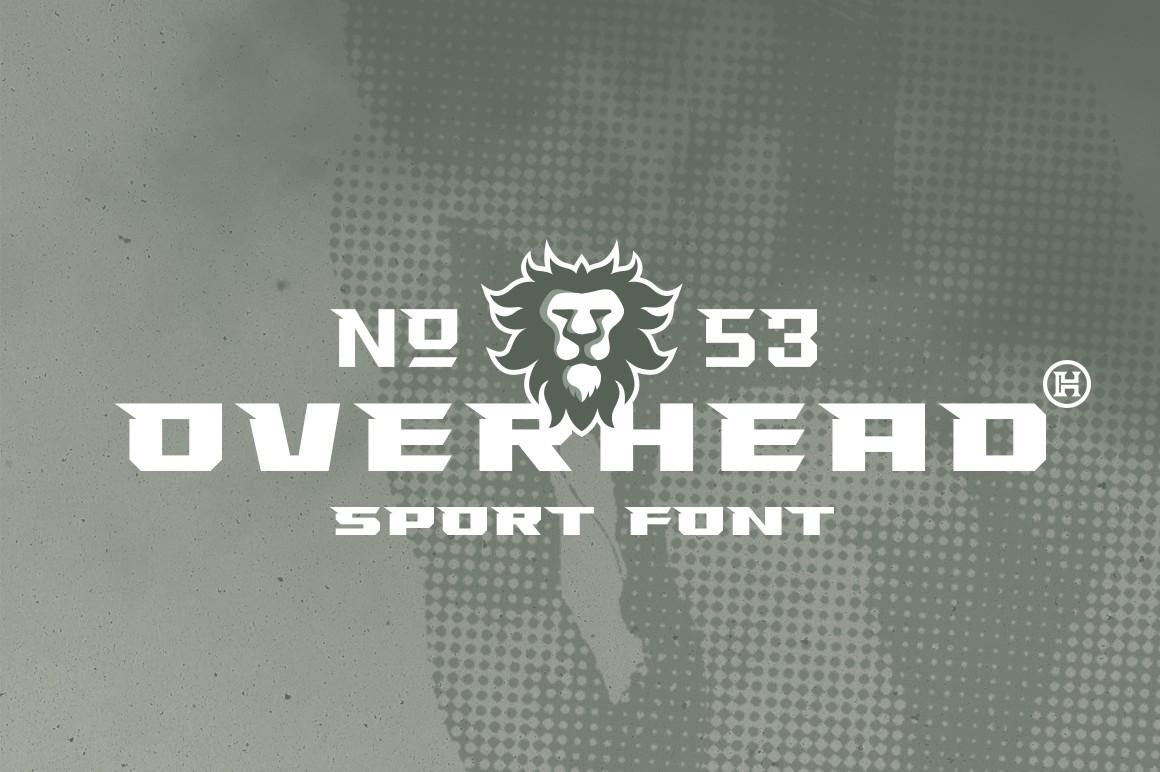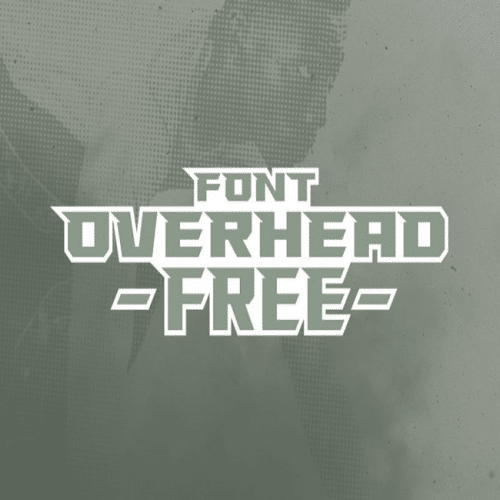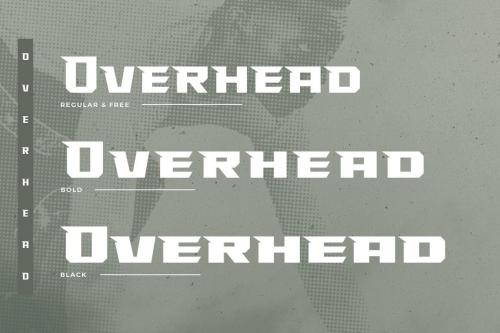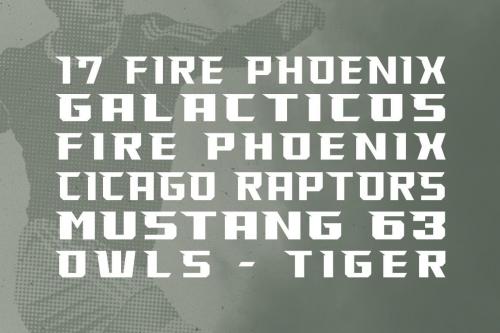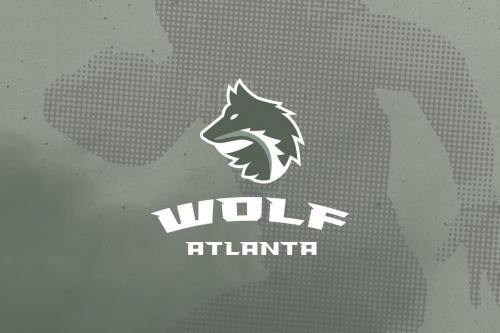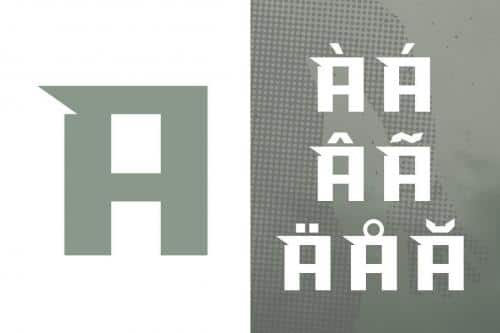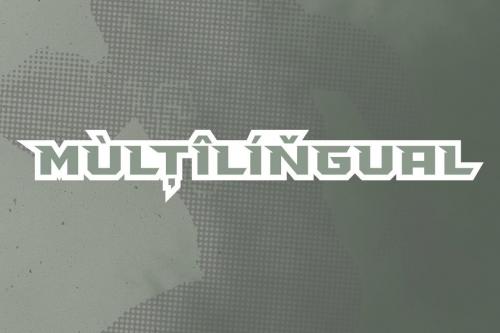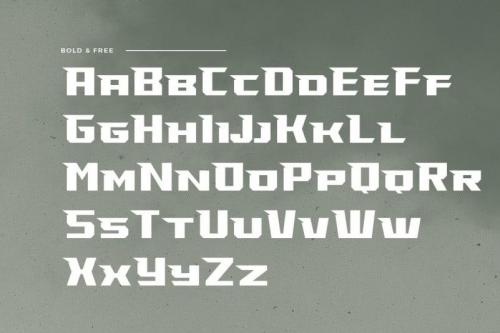
OVERHEAD is a geometric, vivid and strong typeface created for the sports brand industry. Overhead has a dynamic, athletic clear-cut appearance with a sharp slab serif in the upper part of the letterform, that empowers your design.
This typeface has three weights, 256 glyphs each, uppercase and lower uppercase letterforms and extensive Latin script support. Overhead is a strong, bold somehow aggressive looking font therefore excellent to use for headers, logos, captions and posters, especially for the sports branding industry, but just as good for any other striking projects.